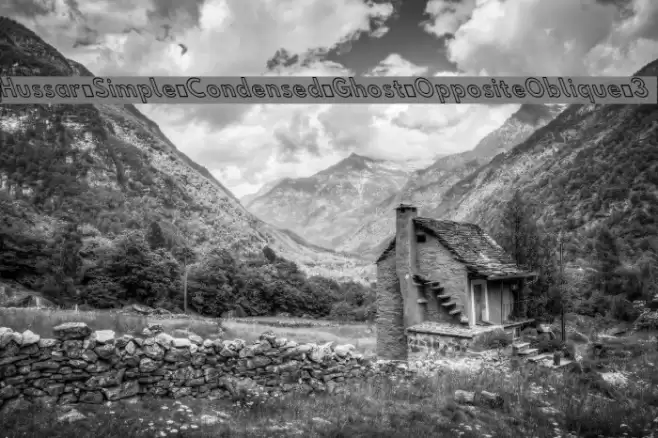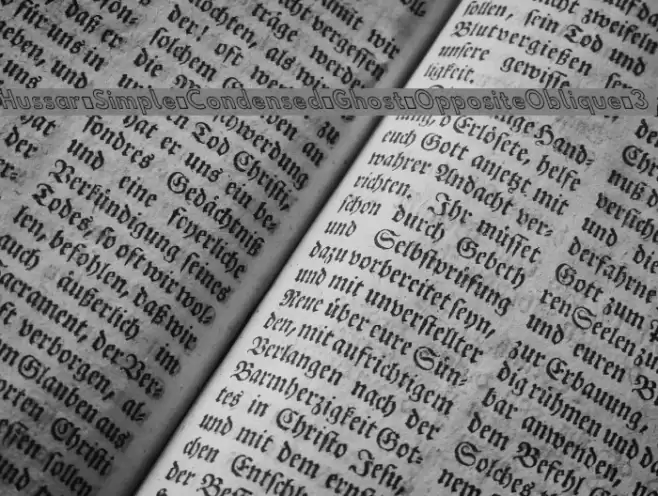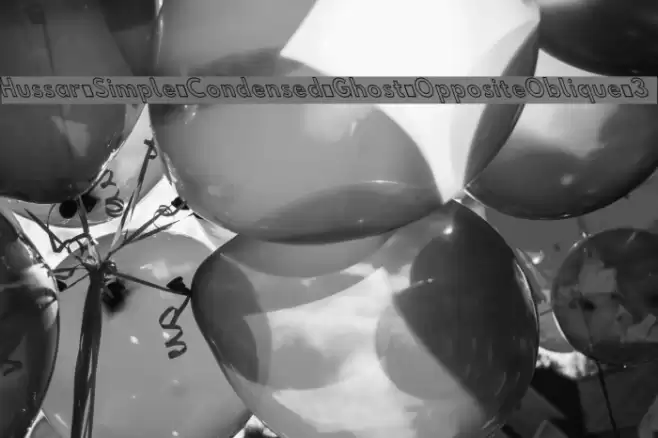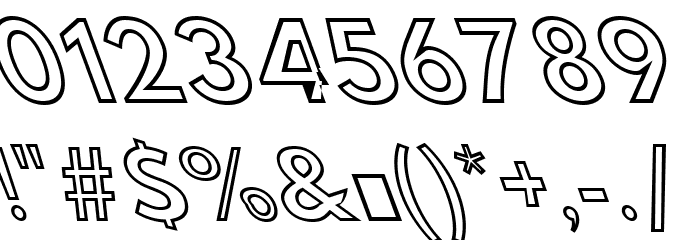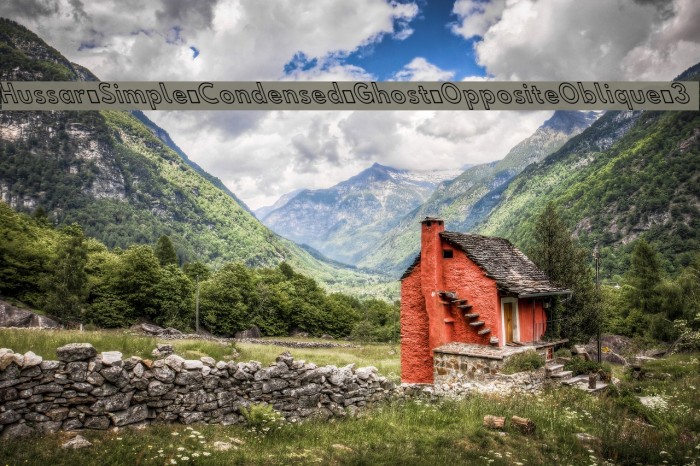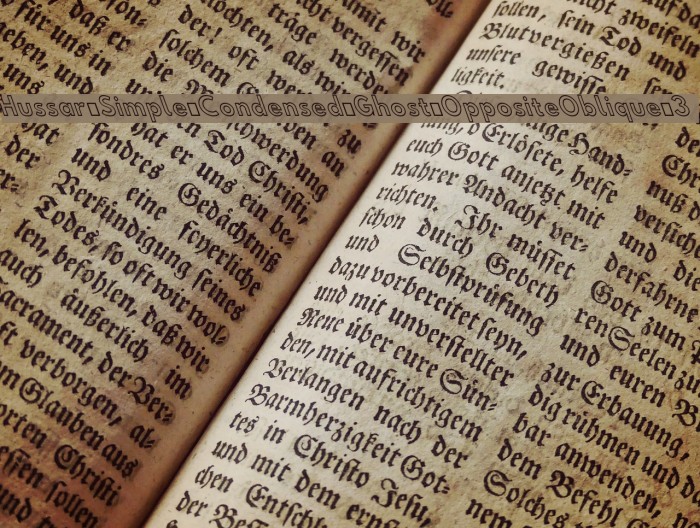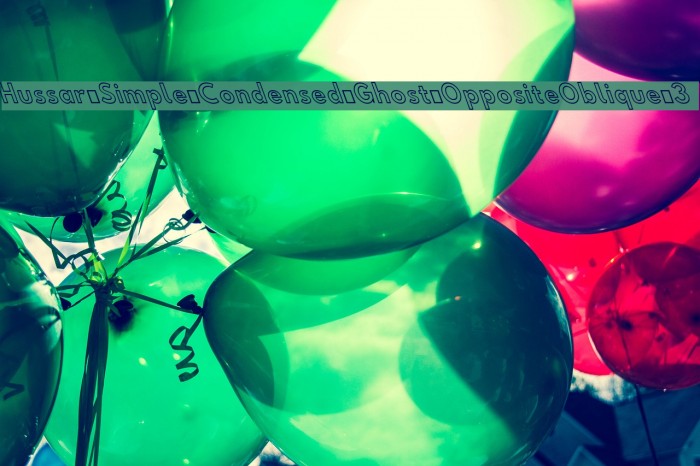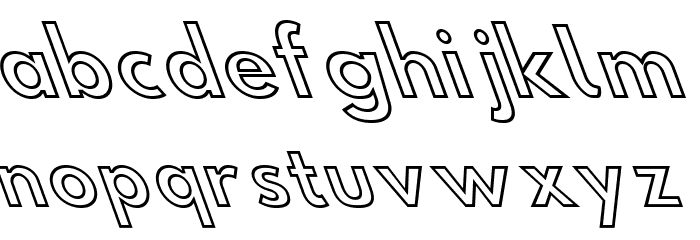
Hussar Simple Condensed Ghost OppositeOblique 3
This font features a unique outline style with a condensed form, giving it a modern and sleek appearance. The characters are designed with a slight oblique angle, adding a dynamic and forward-moving feel. The uppercase and lowercase letters maintain a consistent width, contributing to a uniform look across text. The numerals and special characters are crafted to match the overall style, ensuring cohesion in design. This font's open and airy structure makes it suitable for various creative applications, where a contemporary and distinctive look is desired.
A modern, condensed outline font with an oblique style.
- Proposed Projects: Ideal for branding, posters, and modern web design projects.
- Width: Condensed